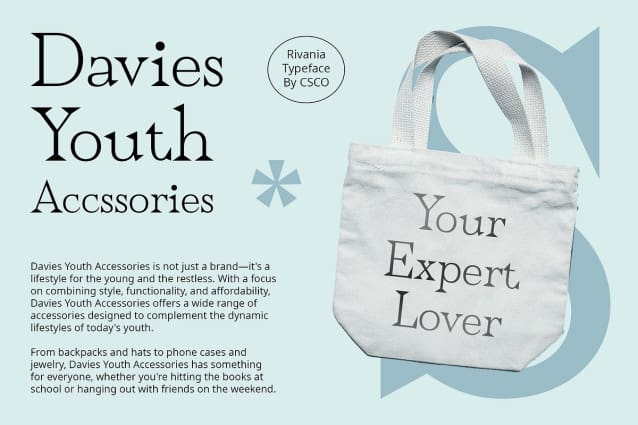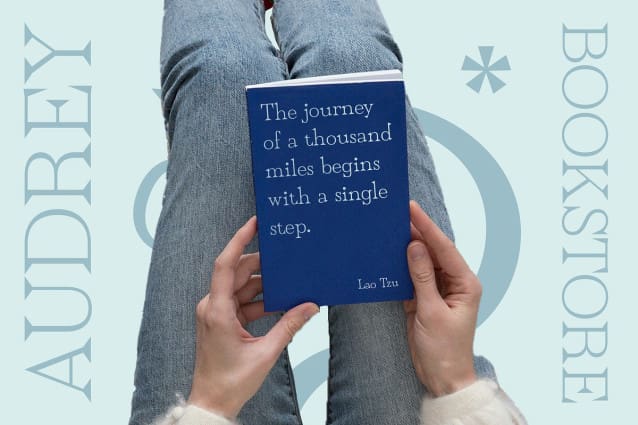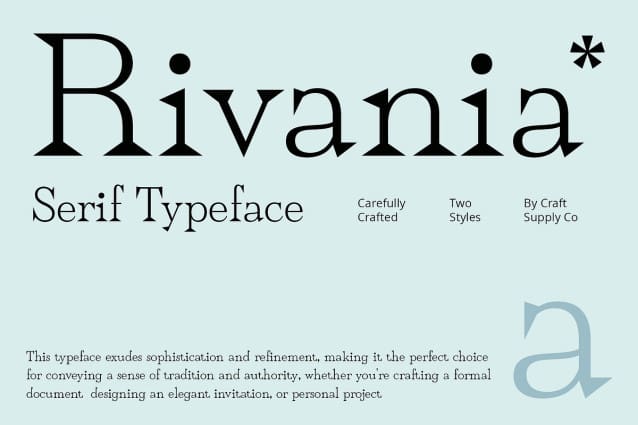
Rivania Font
Rivania Font: A Contemporary Wedge Serif Typeface. Sleek Wedge Serif Design Rivania Font presents a sleek and modern take on the classic wedge serif style. Its distinctive wedge-shaped serifs add a touch of sophistication to each character, creating a unique visual identity.
Low Contrast Stroke With its low-contrast stroke, This font offers a balanced and harmonious appearance. The consistent stroke weight throughout the typeface ensures readability without sacrificing style, making it suitable for various design applications.
Versatile Usage Designed for versatility, This font is suitable for a wide range of design projects. From editorial layouts to branding materials, its contemporary wedge serif style adds a refined elegance to any visual composition.
Subtle Elegance in Every Detail This font subtle elegance lies in its attention to detail. From the precise alignment of serifs to the smooth curves of each letterform, every aspect of the typeface exudes craftsmanship and sophistication.
Modern Sophistication in Typography This font stands out as a contemporary wedge serif typeface that combines sleek design with versatile functionality. Its low-contrast stroke and refined details make it a go-to choice for designers seeking modern elegance in their projects. Explore the possibilities of This font and elevate your typography with its timeless appeal.